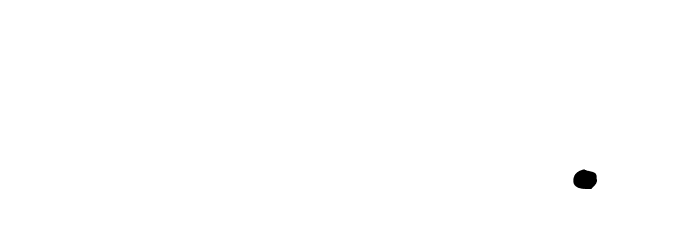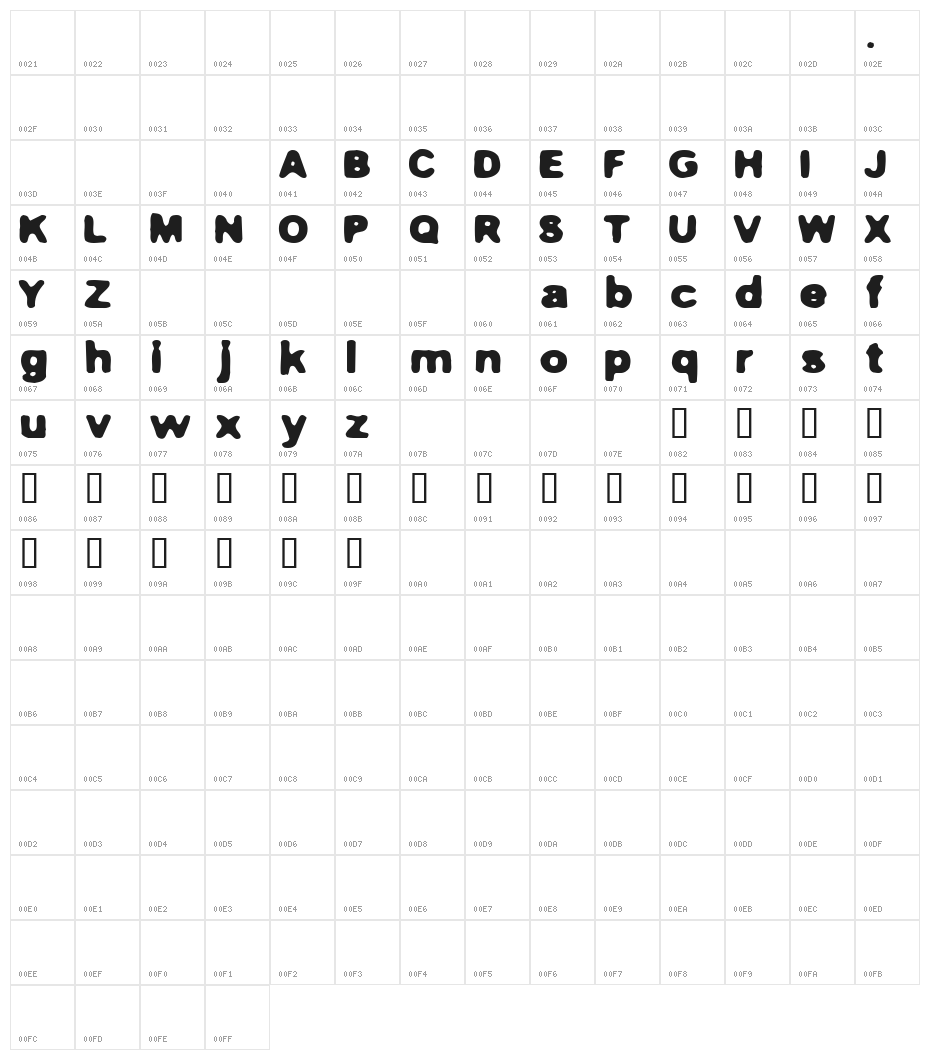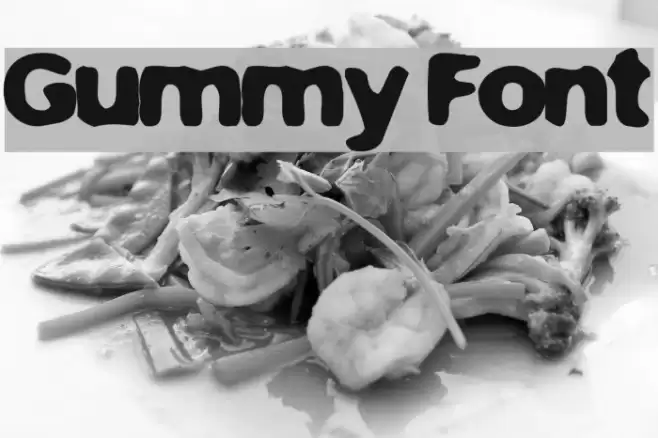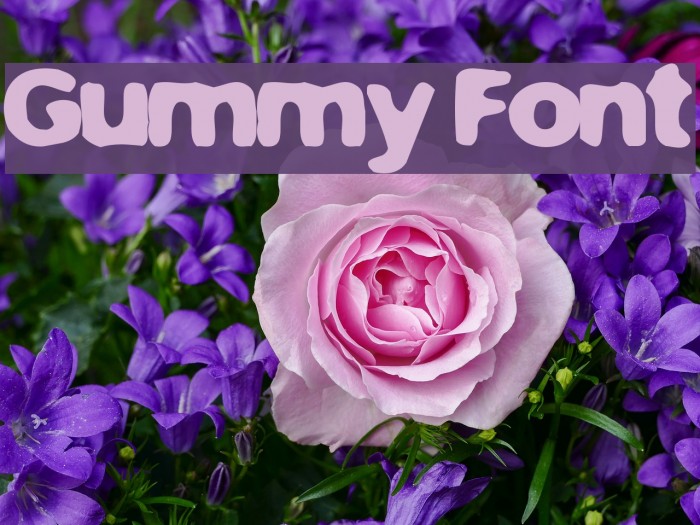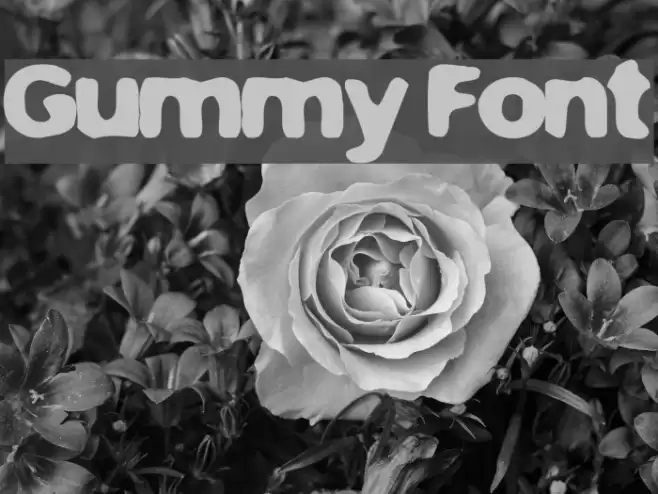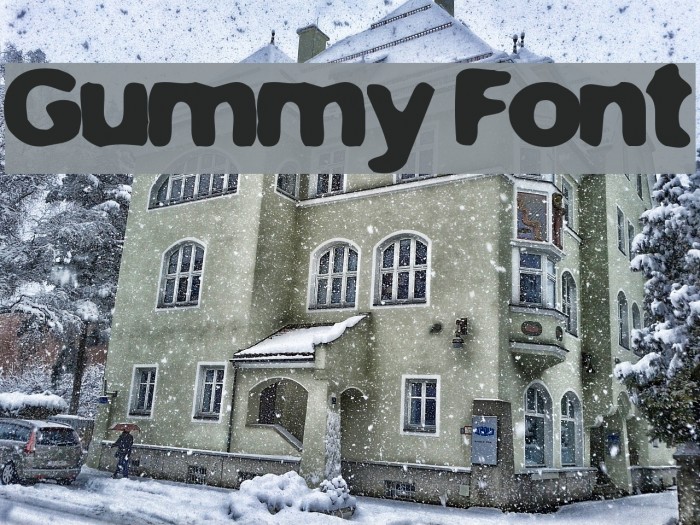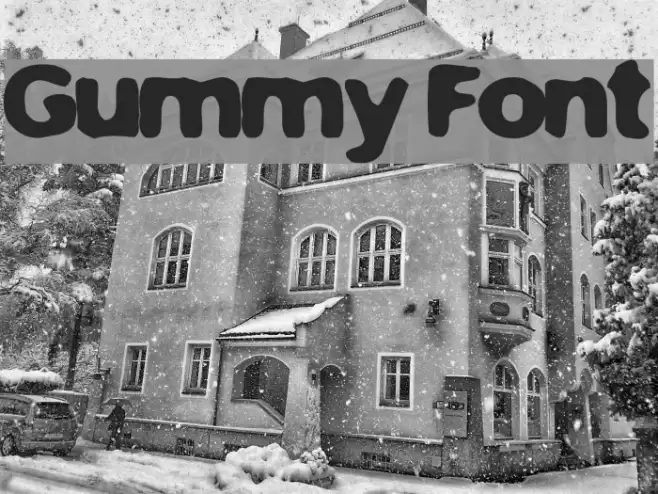
Gummy Font
Gummy Description
This playful and bold font features rounded, bubble-like characters that give it a whimsical and fun appearance. The letters are thick and have a uniform stroke width, creating a sense of consistency and balance. The overall design is reminiscent of soft, inflated shapes, making it ideal for projects that require a lighthearted and approachable feel. The font's unique style is eye-catching and memorable, suitable for creative and informal applications.